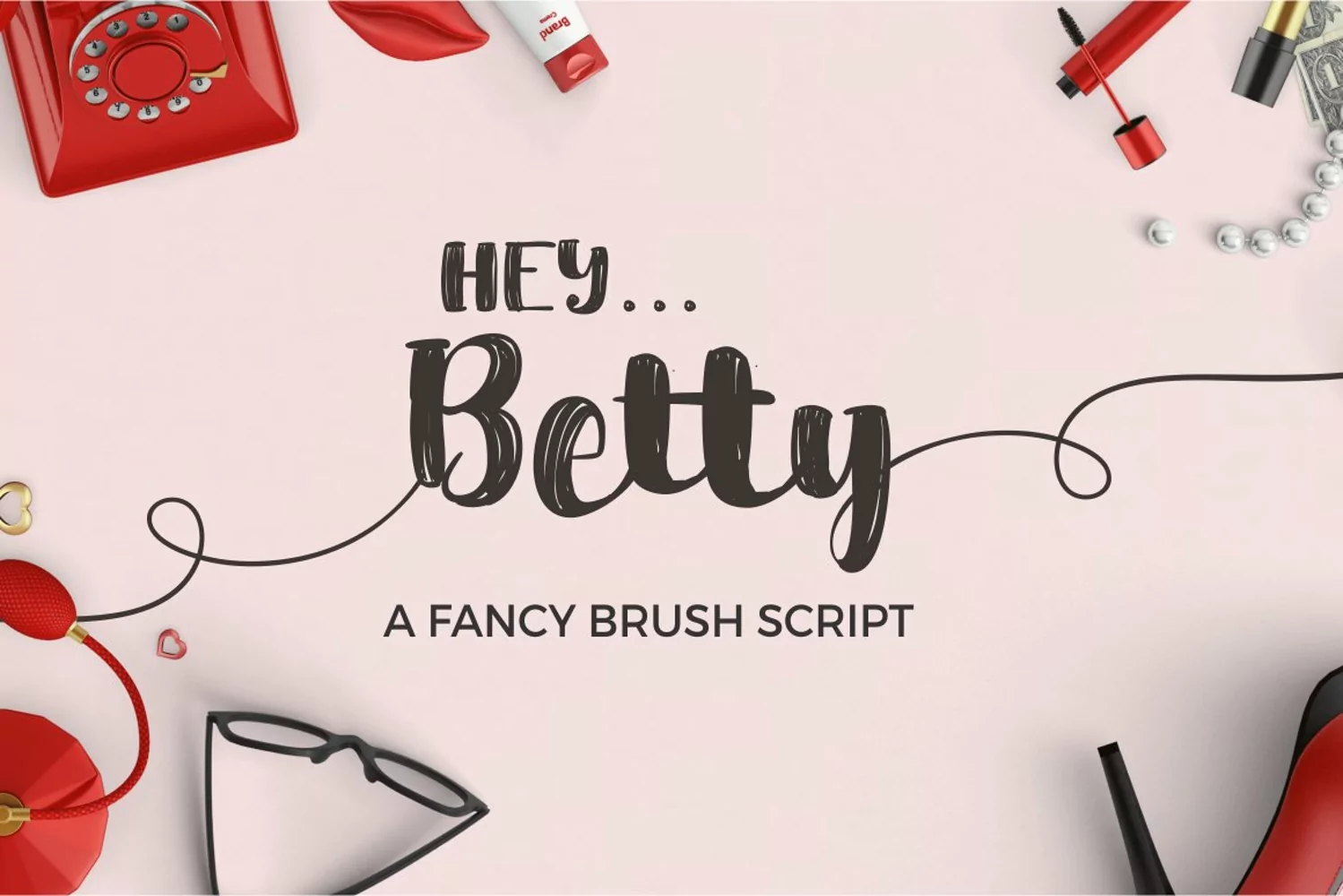
Hey Betty - Bold & Bodacious Brush Font
Hey Betty is a bold and bodacious brush font. It's a thick and dramatic font with loads of character and charm. The strokes have a raw edge which lends attitude and modernity to the design and to your typography. This font comes with all of the basic bells and whistles as well as a few really cool swashes.